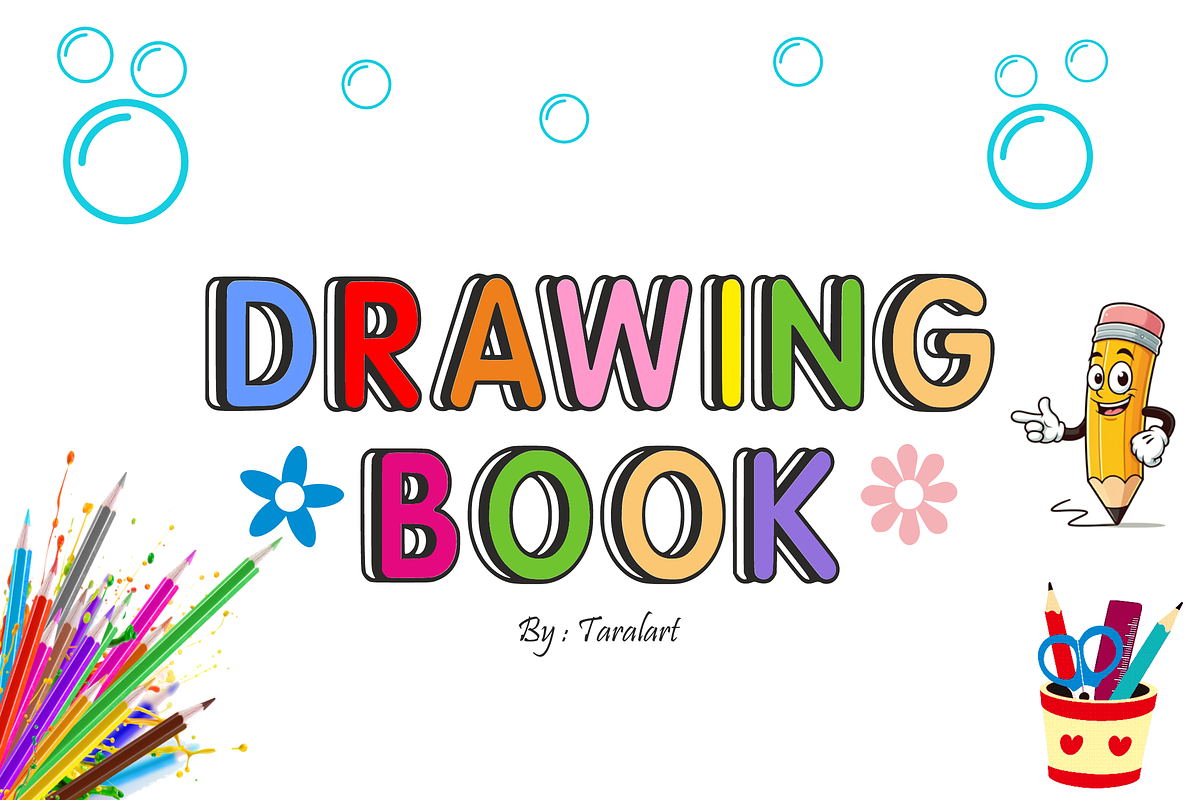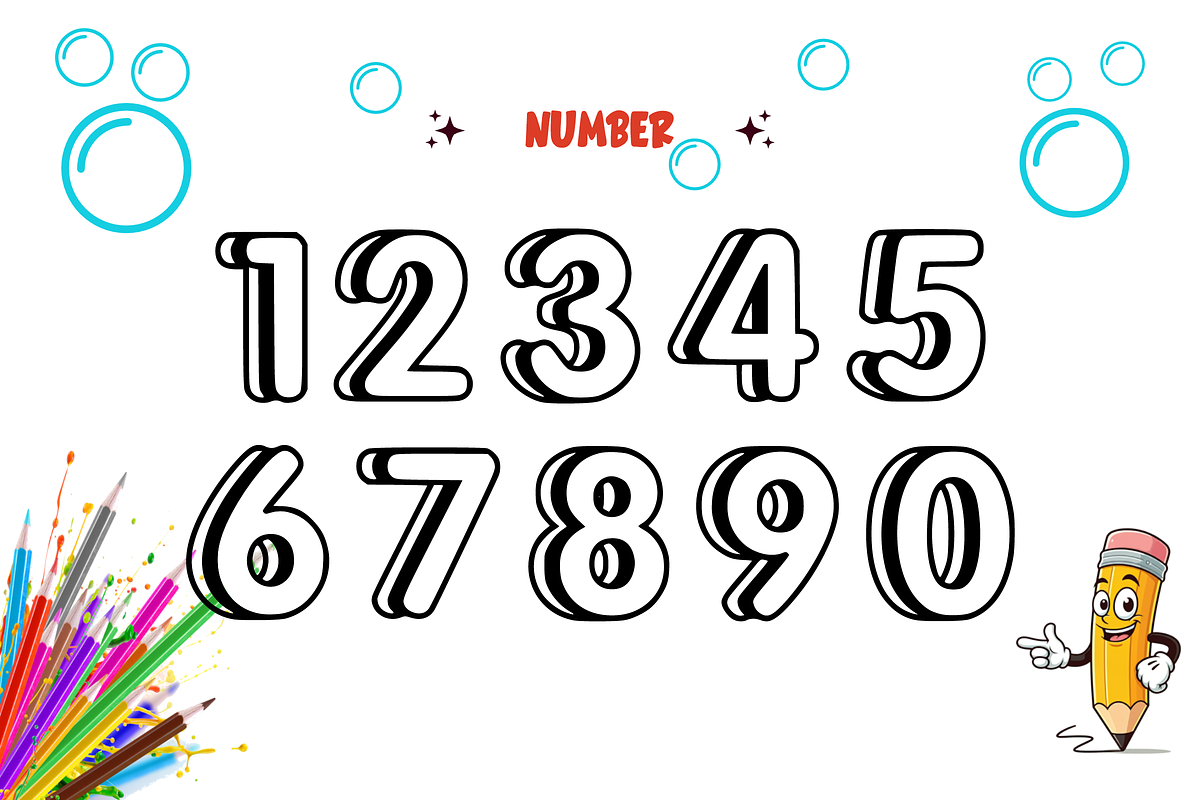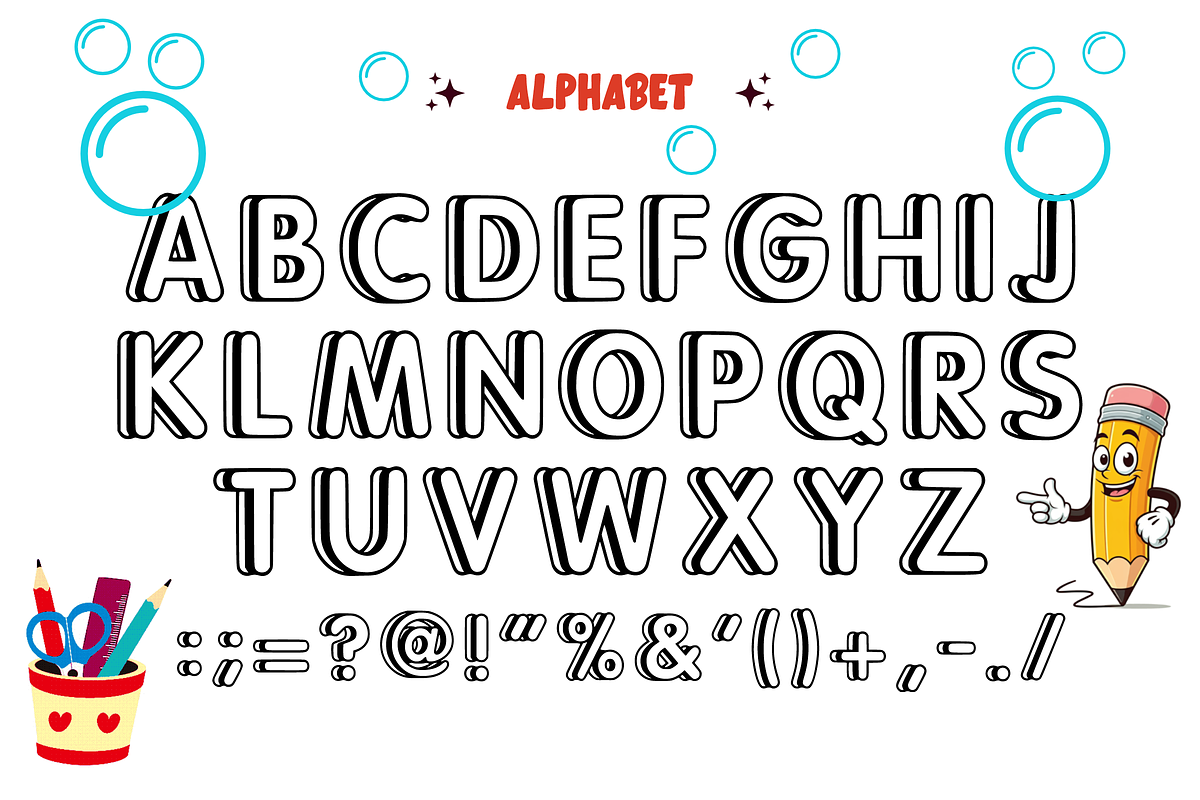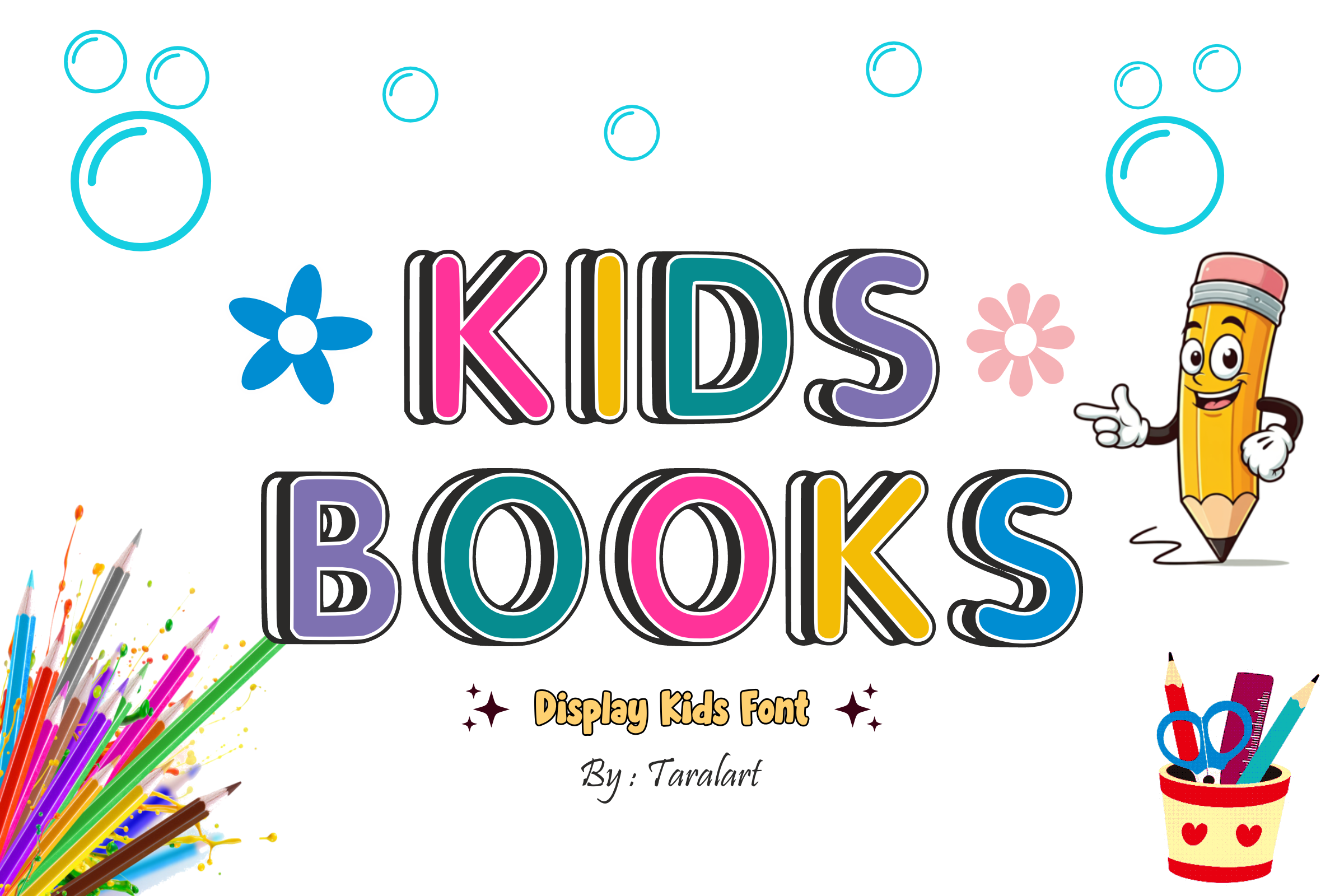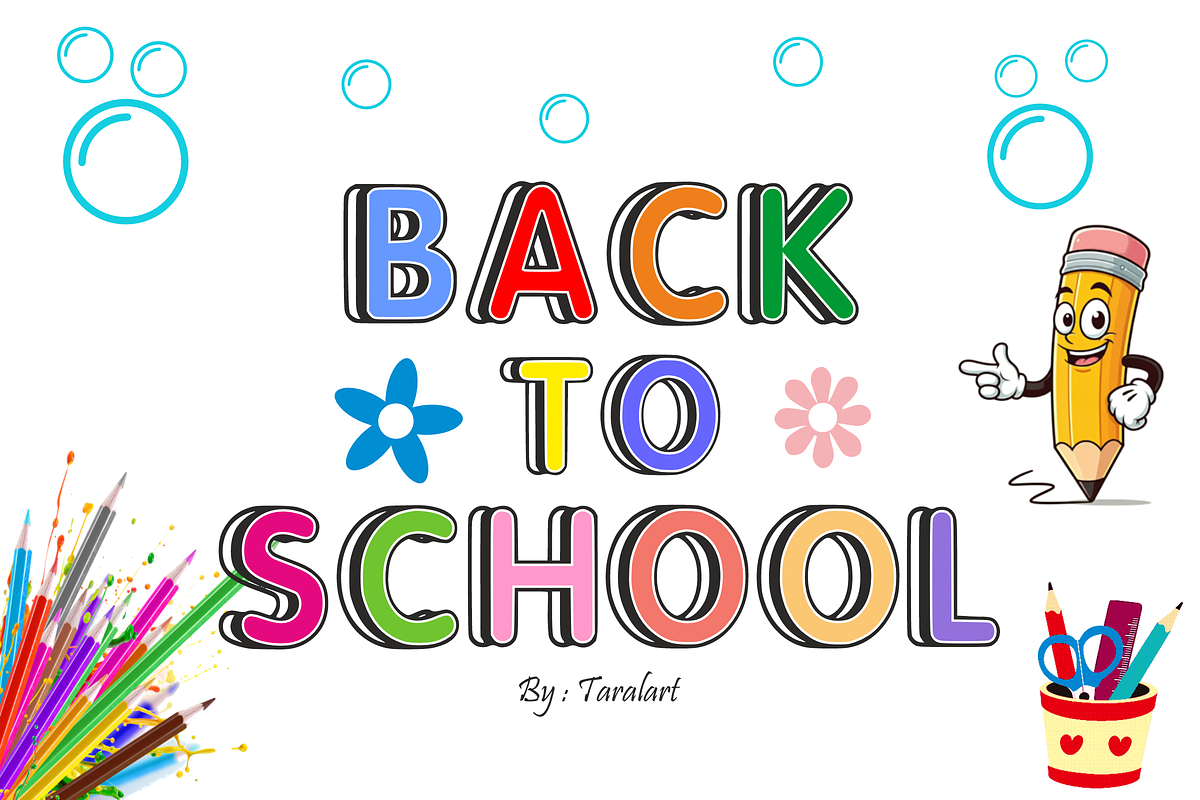
Kids Books - Playful Kids Font
Brighten up your educational and children's designs with Kids Books! This bold, cheerful display font features a playful layered shadow effect that gives each letter a fun, three-dimensional look. It’s the perfect choice for making book covers, classroom materials, and kids' projects look incredibly engaging and welcoming.
Perfect for school packaging, teacher resources, and trend-focused crafting, Kids Books wonderfully combines a whimsical schoolhouse aesthetic with excellent legibility. It is highly versatile, deeply expressive, and fully optimized for flawless performance across premium digital cutting tools and professional print setups.
All-Caps Character Set (Chunky, layered-style letters perfect for headlines)
Numbers & Basic Punctuation (Essential, simple symbols included)
Children's Book Covers, Storybooks, & Kids Novel Layouts 📚
Teacher Resources, Classroom Decor, & Educational Worksheets ✏️
Cricut, Silhouette, & DIY School Craft Sublimation Projects ✂️
Kids Birthday Invitations, Baby Shower Cards, & School Posters 🎈
Custom Die-Cut Stickers, Kindergarten Apparel Prints, & Cute Merch 👕
High-Impact YouTube Thumbnails, School Logos, & Fun Social Media Graphics ✨